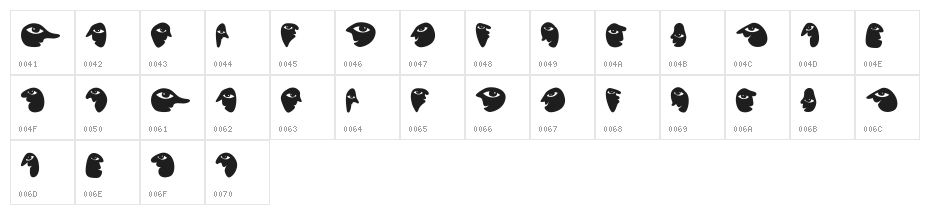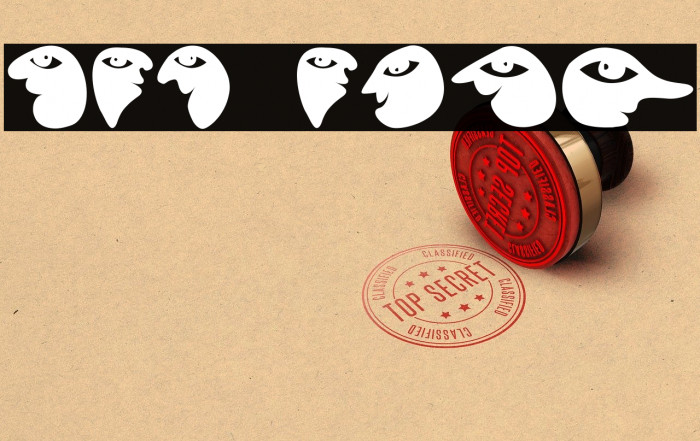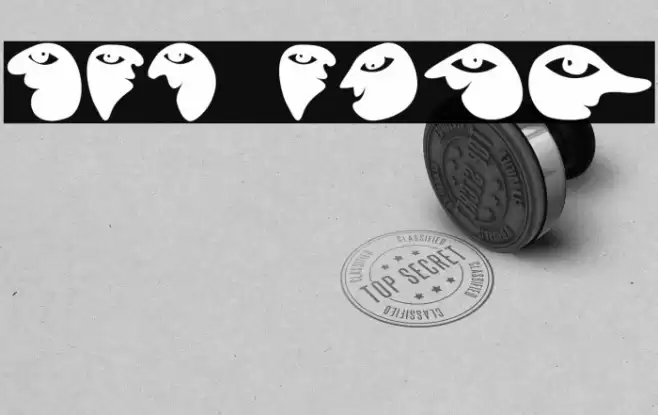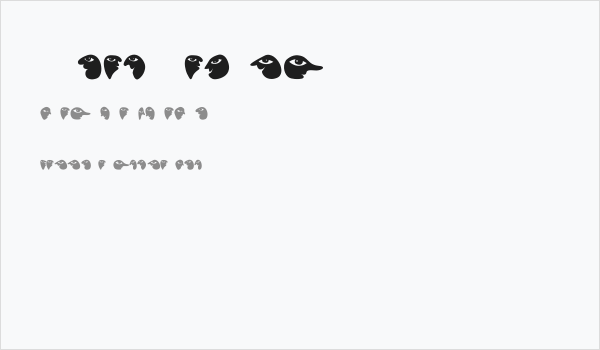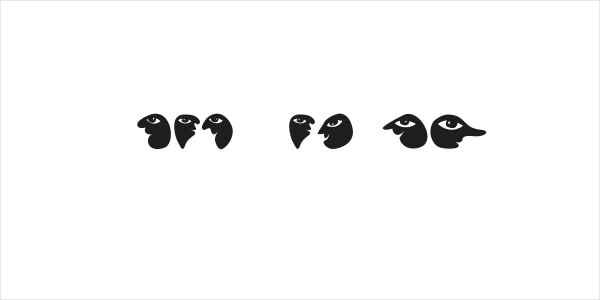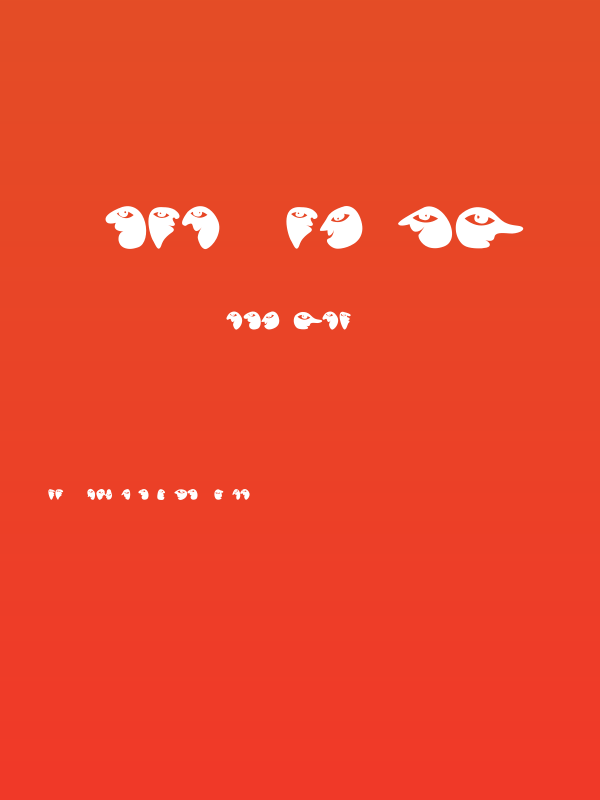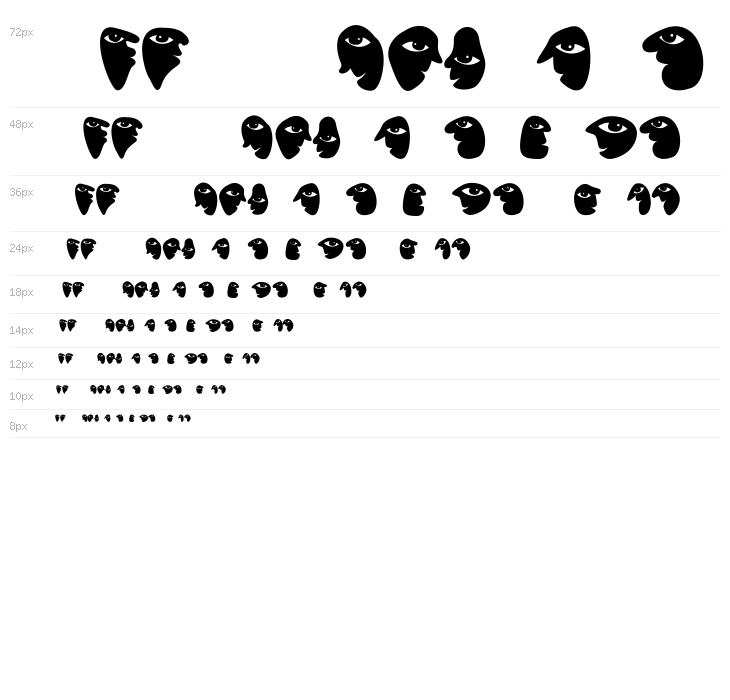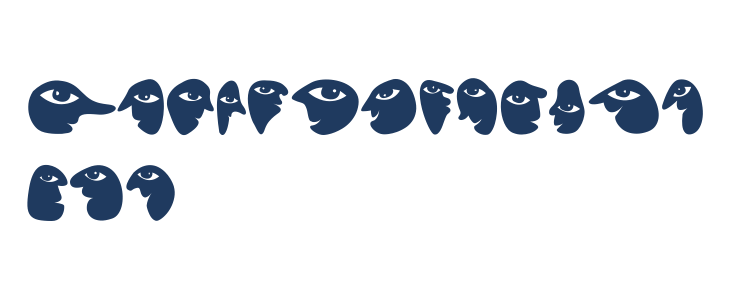
Troep Regular Font
Troep Regular Description
This font features a highly creative and abstract design, where each character resembles a stylized face with exaggerated features. The characters are bold and filled, with a unique artistic flair that makes them stand out. The design is playful and imaginative, with each letter taking on a distinct personality. The font is not meant for traditional readability but rather for artistic expression and decorative purposes. It captures attention with its whimsical and unconventional style, making it suitable for projects that require a touch of humor and creativity.
| Use Case | Logos, Posters, Artistic projects |
| Proposed Projects | Ideal for creative projects such as posters, album covers, children's books, and artistic branding. |